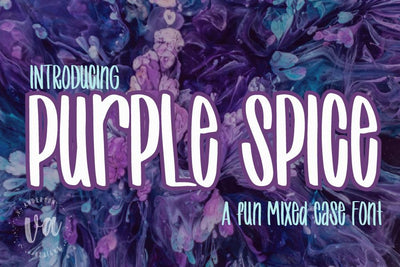
Purple Spice Font
Purple Spice is a handlettered marker font with tight kerning. All letters are the same height for you to mix and match upper and lower case.